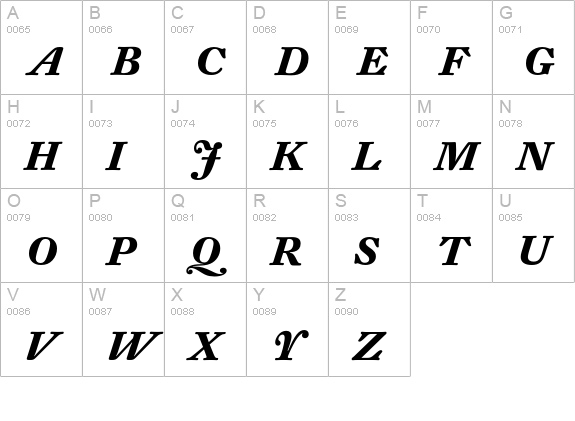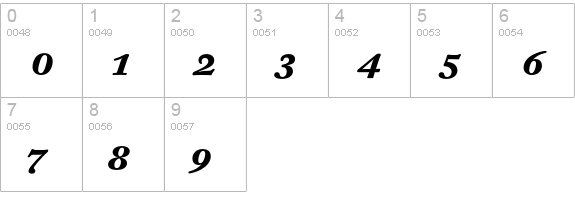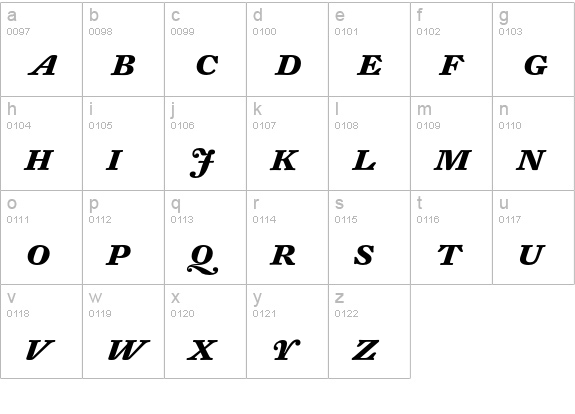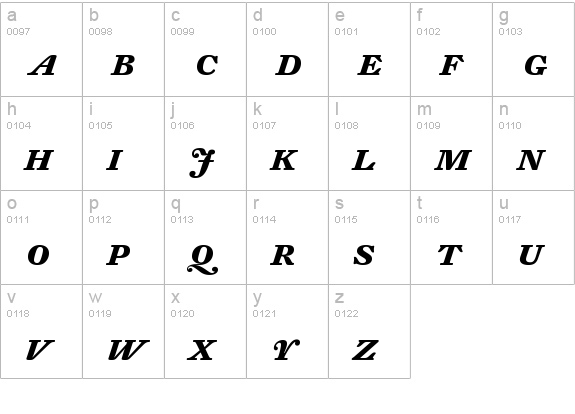
DTL Fleischmann T Bold Italic Caps is a strong, high-contrast, italic variant in the DTL typeface family \xE2\x80\x94 well suited to headlines, attention-grabbing titles, and strong calls-to-action.
The DTL Fleischmann T Bold Italic Caps font is a striking and dynamic typeface that exudes elegance and sophistication. Its bold and italicized design adds a touch of modernity to any project while maintaining a classic and timeless feel. This font is perfect for creating eye-catching headlines, logos, and branding materials that demand attention. Best of all, the DTL Fleischmann T Bold Italic Caps font is available for free download at FontsMarket.com. This means you can easily access this premium font without any cost, making it a valuable asset for designers, creatives, and typographers alike. Don't miss out on the opportunity to enhance your projects with the DTL Fleischmann T Bold Italic Caps font today!